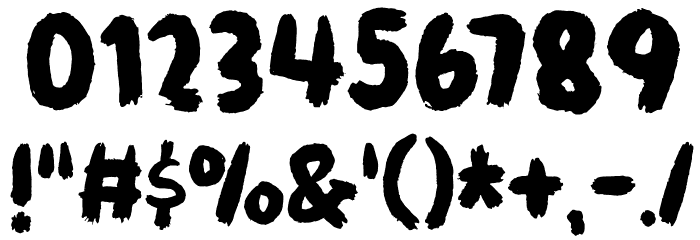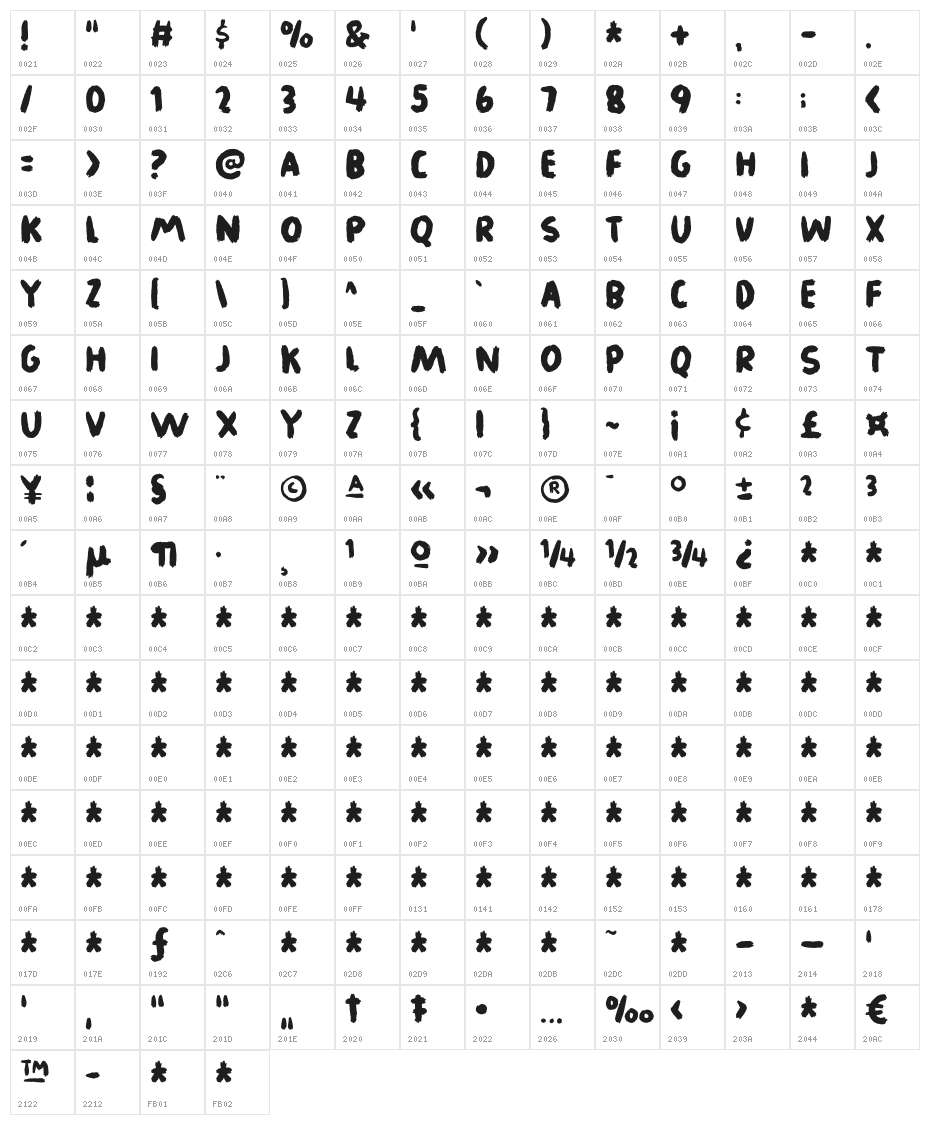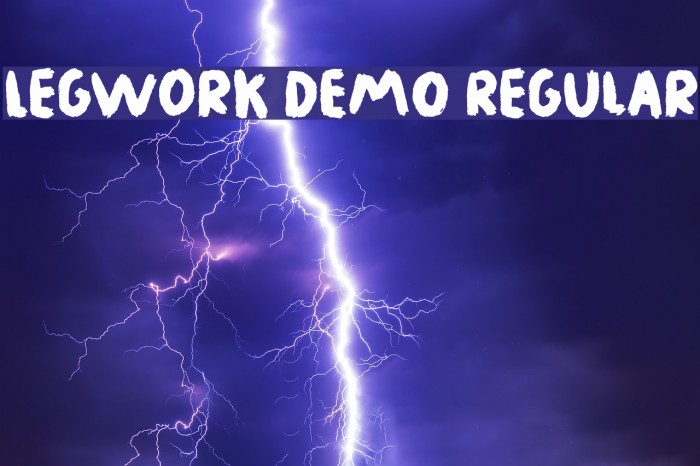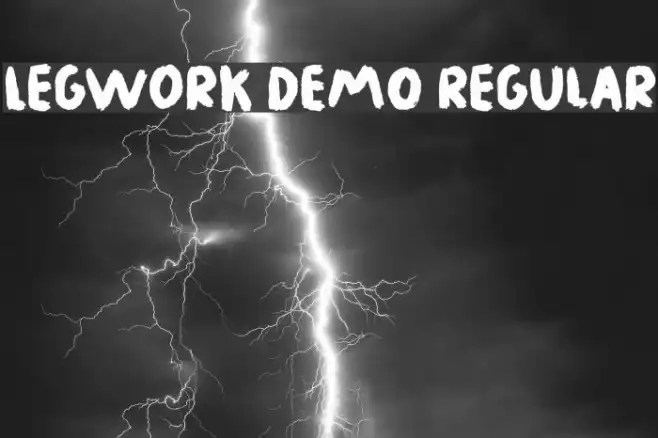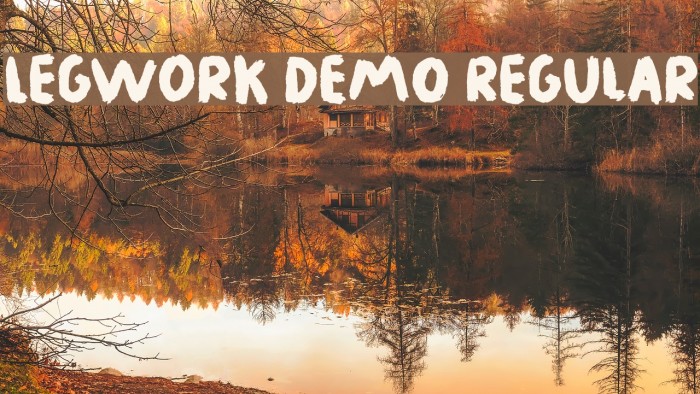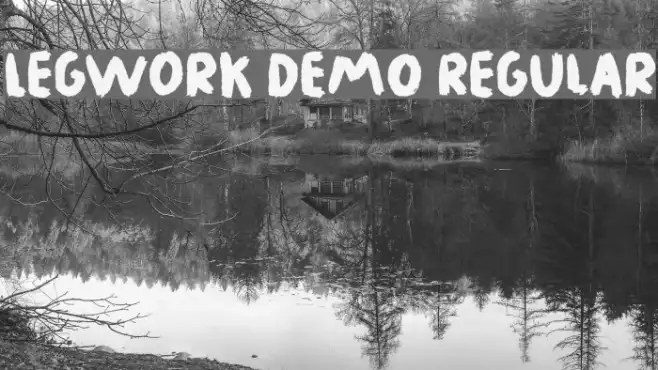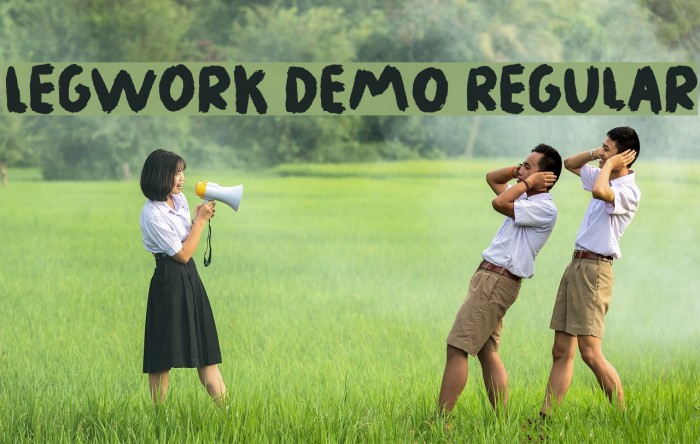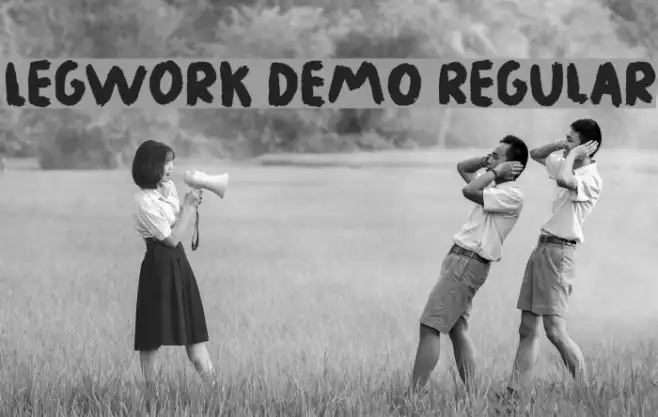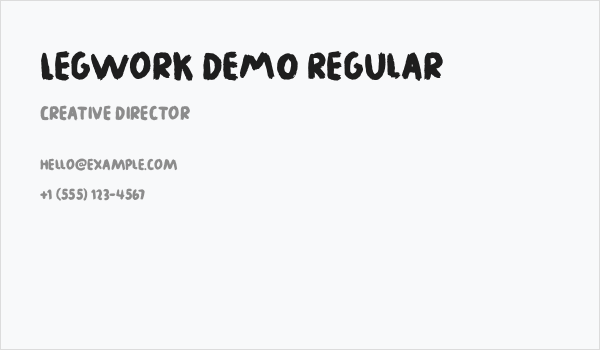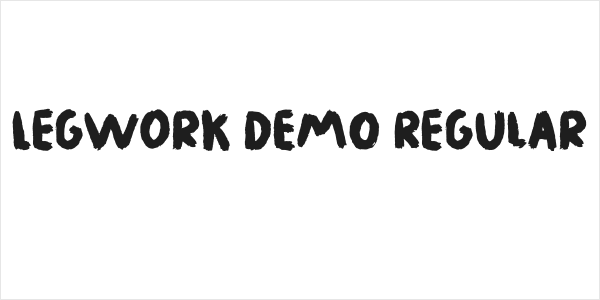
Legwork DEMO Regular Font
Legwork DEMO Regular Description
This font features a bold, brush-like appearance with thick, uneven strokes that give it a hand-painted feel. The characters are slightly irregular, adding a dynamic and energetic quality to the text. The uppercase and lowercase letters maintain a consistent style, with rounded edges and a playful, informal vibe. The numbers and special characters follow the same aesthetic, ensuring a cohesive look across all text elements. This font's unique style makes it stand out, perfect for projects that require a touch of creativity and boldness.
| Proposed Projects | Ideal for posters, branding, headlines, and creative projects that need a bold, artistic touch. |